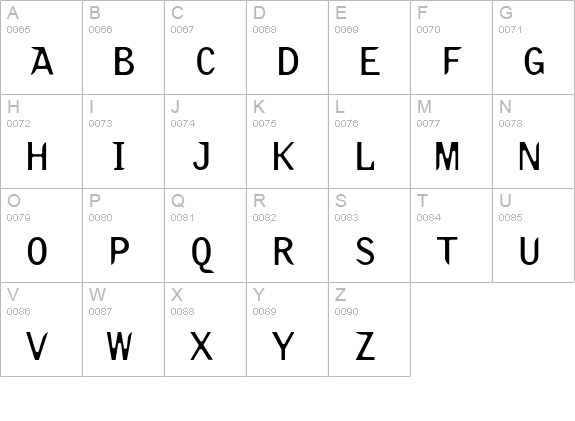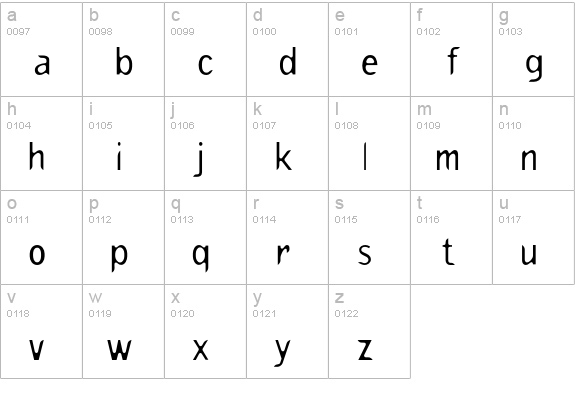
Introducing Truth-Letter font, a captivating and versatile typeface that embodies the essence of truth and authenticity. With its clean lines and balanced letterforms, this font exudes a sense of honesty and transparency, making it perfect for a wide range of design projects. Truth-Letter font is not just visually stunning, but it also offers a seamless reading experience, ensuring that your message is conveyed with clarity and precision. Whether you're designing a logo, crafting a headline, or creating a poster, this font will elevate your design to new heights of professionalism and credibility. One of the most remarkable features of Truth-Letter font is that it is free. Yes, you read that right! This incredible font is freely available to download at FontsMarket.com, a trusted platform for high-quality and diverse fonts. By offering Truth-Letter font for free, we believe in democratizing design and empowering creators of all kinds to bring their visions to life without any financial barriers. Furthermore, the versatility of Truth-Letter font knows no bounds. Its extensive character set includes uppercase and lowercase letters, numbers, punctuation marks, and special symbols, ensuring that you have all the tools you need to express yourself creatively. Whether you're a seasoned designer or just starting on your creative journey, Truth-Letter font is a must-have addition to your font collection. Its timeless design, coupled with its accessibility, makes it a true gem in the world of typography. Don't miss out on the opportunity to elevate your designs with the captivating Truth-Letter font. Download it for free at FontsMarket.com and let your creativity soar to new heights.